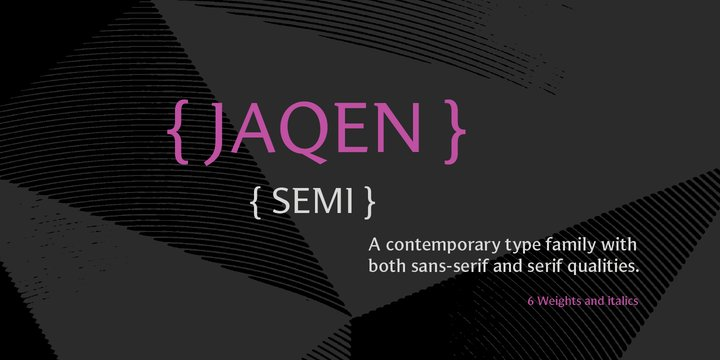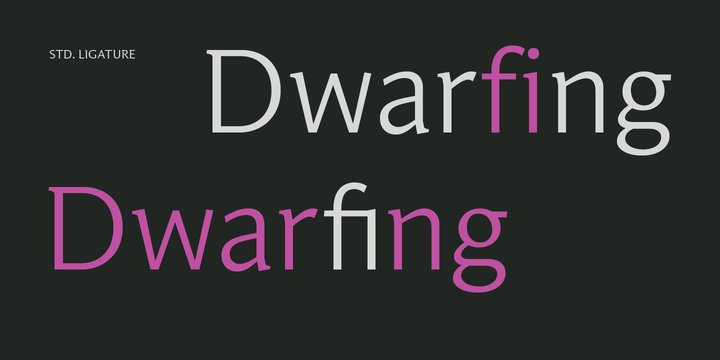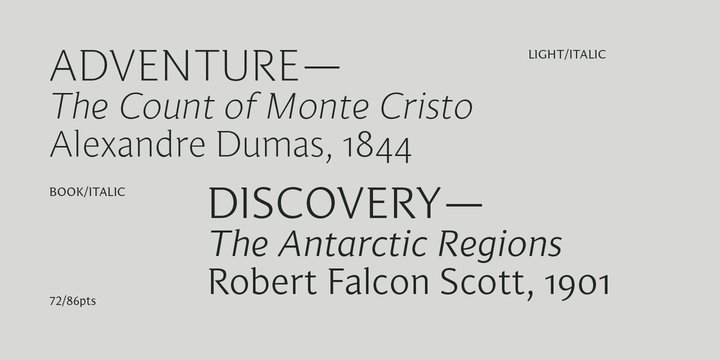
Jaqen Semi Font
Jaqen Semi FontJaqen Semi is a contemporary type family with both sans-serif and serif qualities. Drafted by hand using overlays of the serif version ‘Jaqen’ to help maintain natural letter shapes and consistency the typeface is then digitally produced. The result is a well-defined semi-serif type family with the right balance, form and personality for creating stand out work in the digital era.